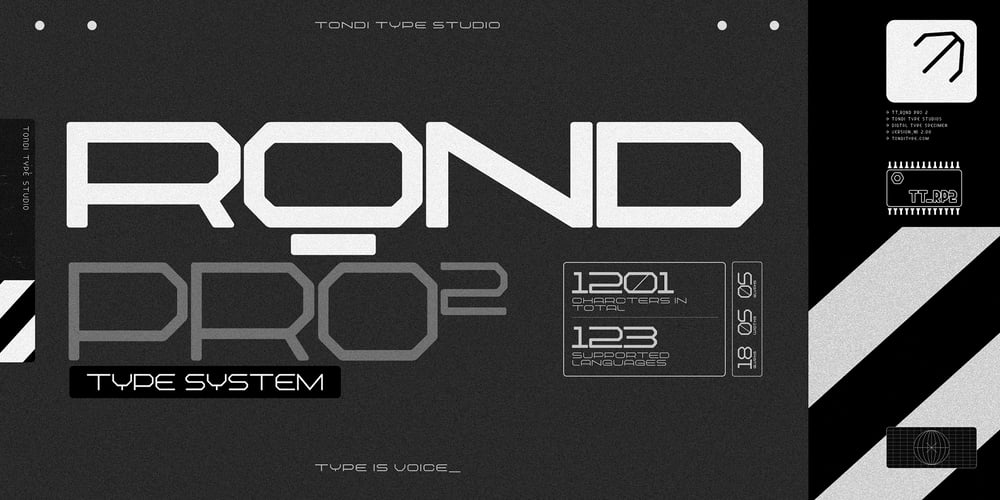
RQND Pro V.2 Font Family was designed by Fhumulani Nemulodi and published by Tondi Type Studio. RQND Pro V.2 contains 20 styles and family package options. Introducing RQND Pro 2 – The Futuristic and Industrial Sans Serif FontWelcome to the world of RQND Pro 2, a cutting-edge sans serif font designed to elevate your designs to new heights. With its industrial aesthetic and futuristic appeal, this font is the perfect choice for projects seeking a bold and contemporary look.Key Features: 1,201 Glyphs: RQND Pro 2 boasts an extensive character set, offering you a vast array of design possibilities. Supports 123 Languages: No matter where your audience is, this font ensures that your message is conveyed clearly and effectively. 20 Font Styles: With 5 font weights and 5 font widths, RQND Pro 2 offers 20 unique styles to suit every creative vision. Expanded to Extra Condensed: Whether you need a spacious layout or a compact design, this font delivers unmatched versatility. 18 OpenType Features: Unlock the full potential of RQND Pro 2 with various OpenType features, including small caps, alternate characters, standard numerals, circled numerals, fractions, and more. All Caps Font: Embrace the power of uppercase letters with this font, enhancing the impact of your message. Full Character Set: From standard numerals to punctuation marks, mathematical symbols to special characters, RQND Pro 2 has everything you need for seamless communication. Latin and Cyrillic Support: Perfect for international projects, this font provides complete support for both Latin and Cyrillic languages. RQND Pro 2 empowers designers, creatives, and typographers to explore new design territories. Its sleek and modern appearance makes it ideal for tech branding, UI design, editorial projects, advertisements, web design, and more.Discover a font that combines sophistication with contemporary flair. Elevate your designs with RQND Pro 2 and leave a lasting impression on your audience. Explore the full range of styles and unleash your creativity today.